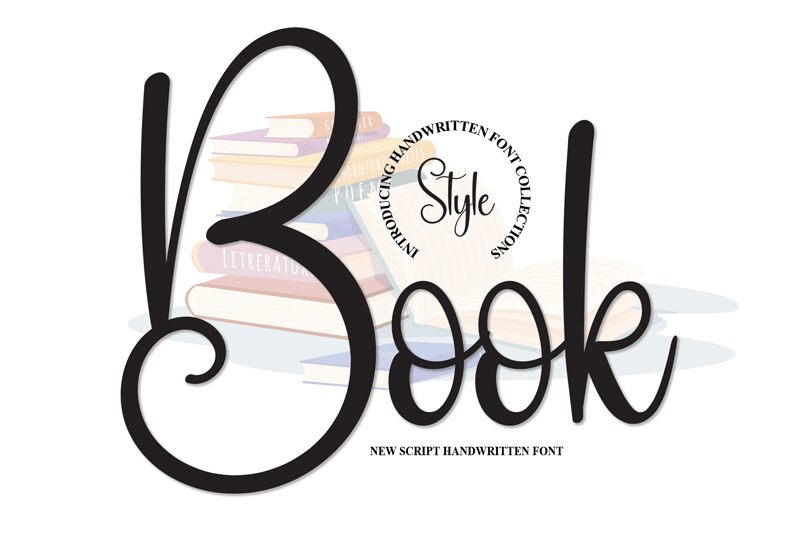
Book
Book, designed by Scratchones, presents a handwritten style that evokes the charm of personal notes and intimate correspondence. With its fluid, organic curves and a casual elegance, this font captures the warmth of handwritten communication. The characters dance with a playful irregularity, as if penned by a spirited hand in a moment of inspiration.
The font's inviting character makes it an excellent choice for projects that require a touch of personality and authenticity. Whether it's to add character to branding materials, create engaging graphics for social media, or lend a heartfelt touch to invitations and greeting cards—Book brings an element of human touch that is both comforting and delightful.